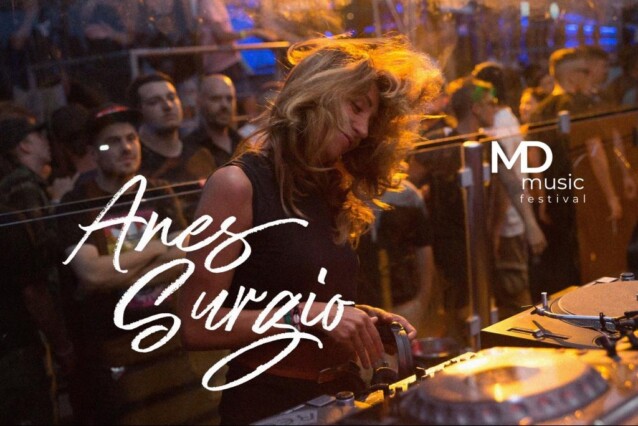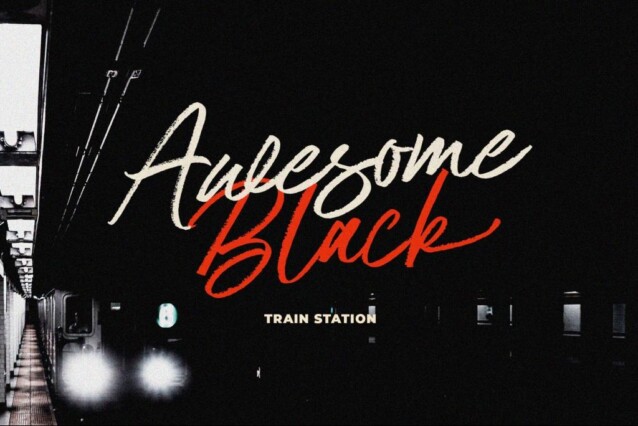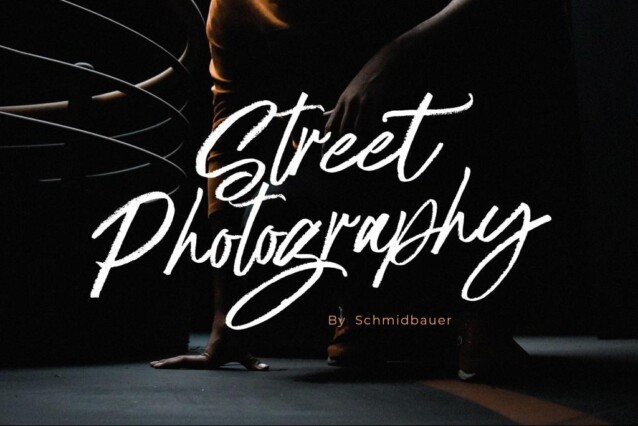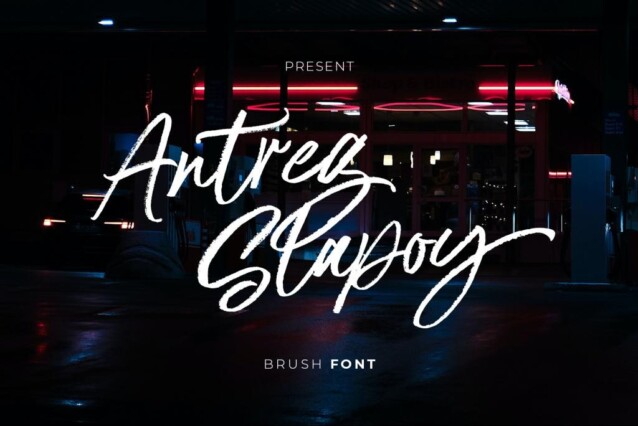
Antreg Slapoy Font
Antreg Slapoy Font is an artistic brush script font crafted & designed by Gatype. With natural hand strokes, this font will add an attractive touch to your design projects. Perfect for logo design, poster design, social media, typography quotes over photos, book covers and packaging designs.